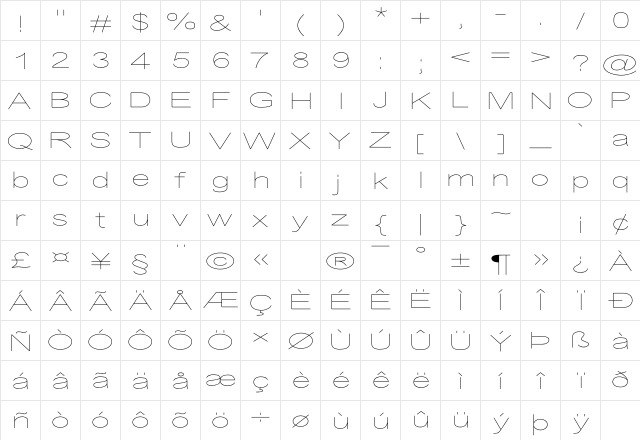
Desolator Ultralight
Design Context for Desolator Typeface
Desolator offers clean, dependable letterforms without strong stylistic allegiance, making it a practical choice for designers who need flexibility. The delicate stroke weight brings airiness and refinement to layouts.